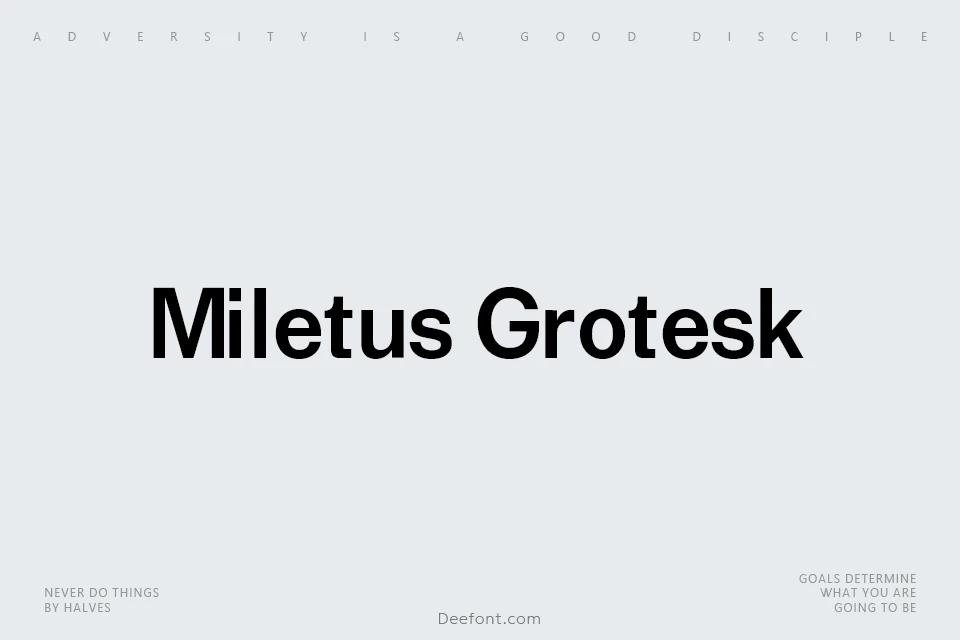
Miletus Grotesk Font Family
Miletus Grotesk is a contemporary neo-grotesque sans-serif font family designed by Mario Feliciano. Inspired by the early 20th-century grotesque style, particularly the Standard Gothic typeface from 1906, it offers a modern yet classic aesthetic. The family includes seven weights with matching italics, as well as Wide and Extended widths, providing versatile options for various design needs. Miletus Grotesk features clean, geometric letterforms that gain strength and presence as the weight increases, making it suitable for both text and display use. Its balanced proportions and subtle character make it ideal for editorial, branding, and large-format applications.